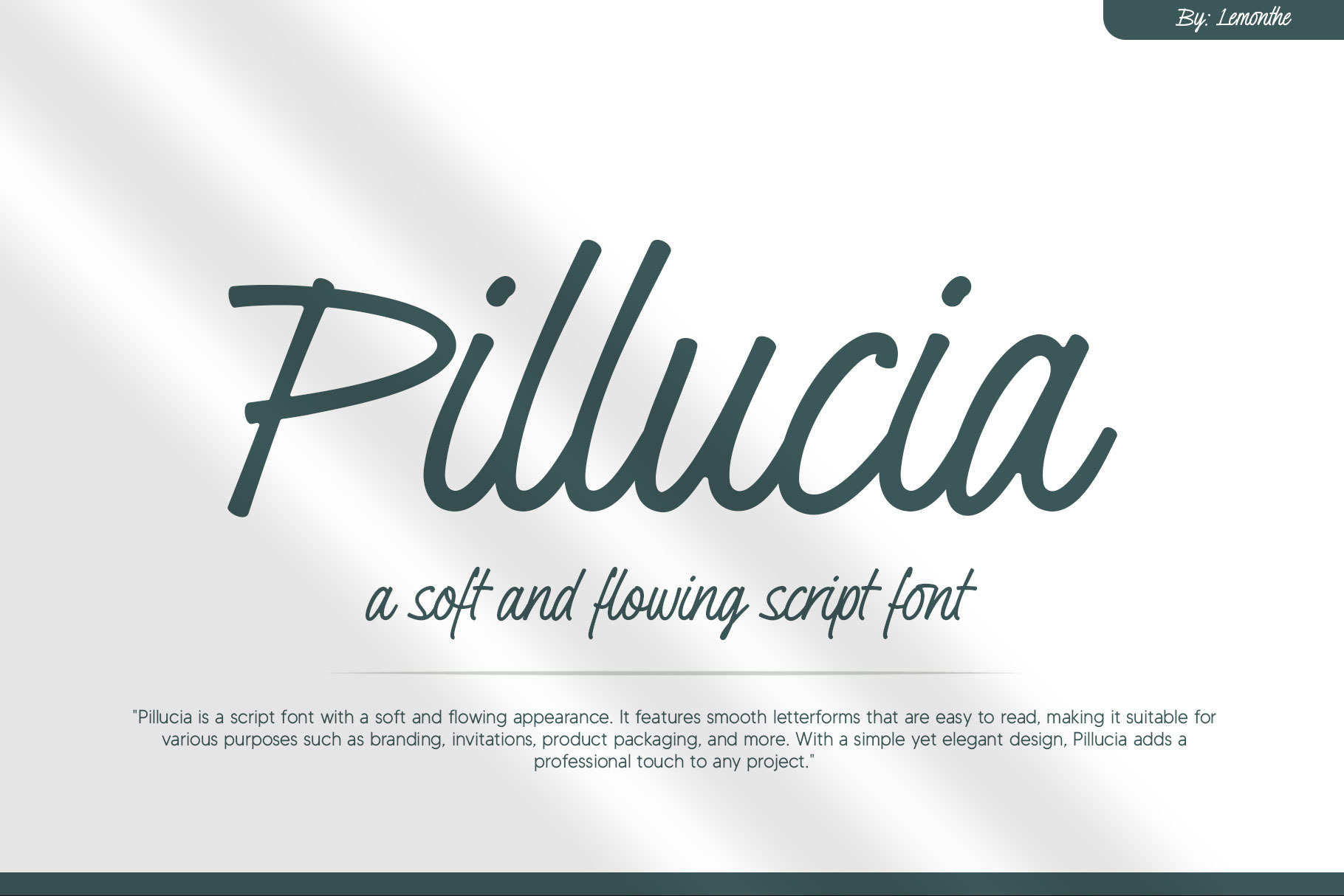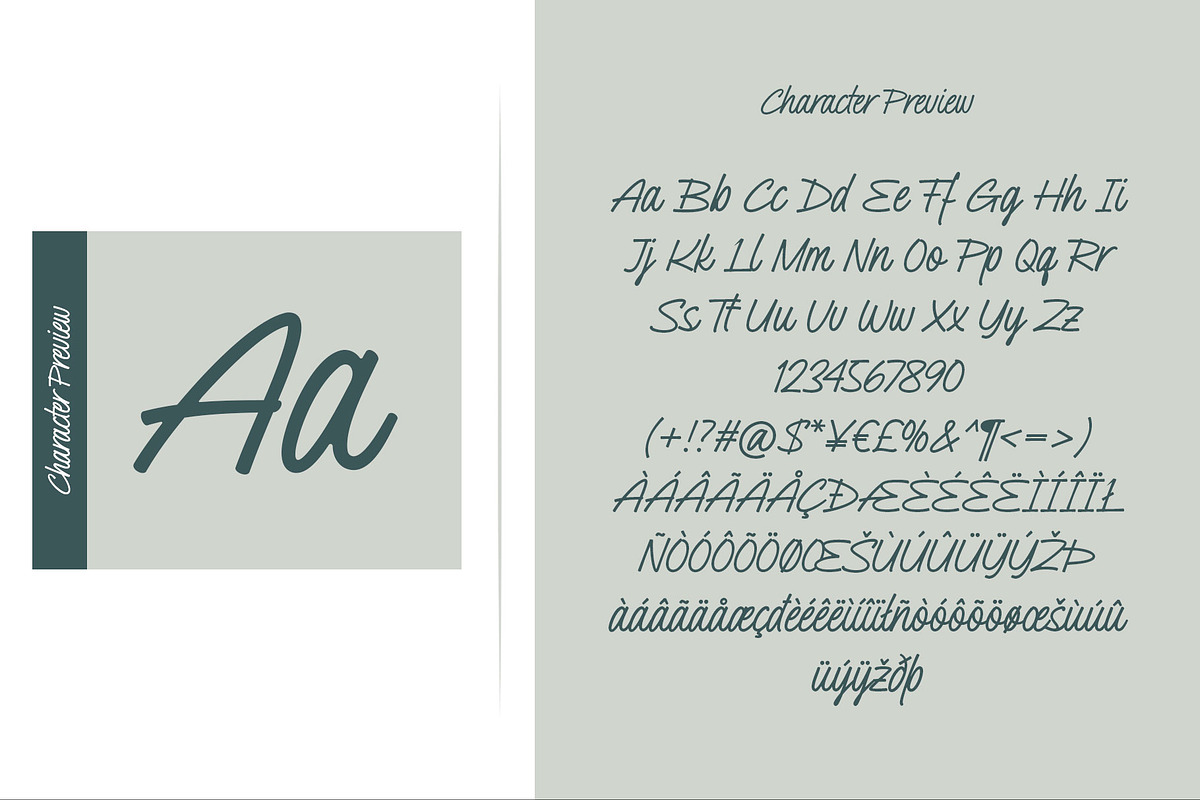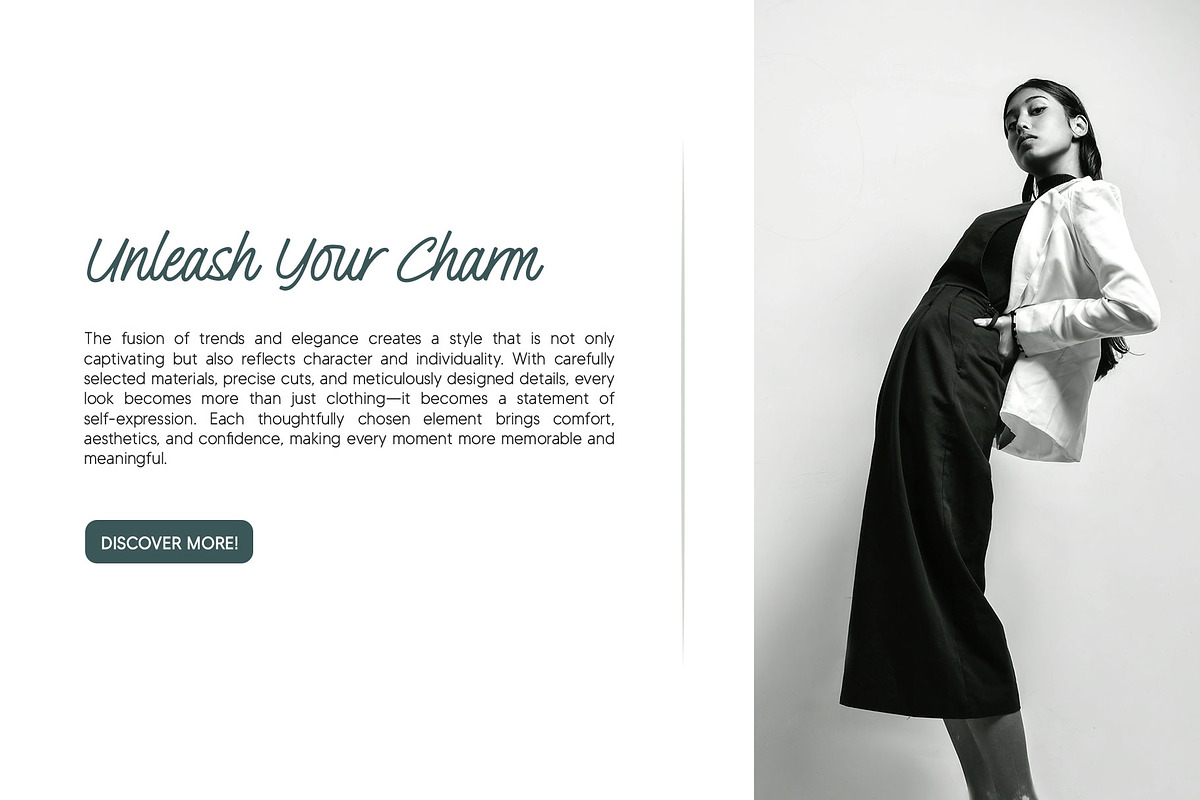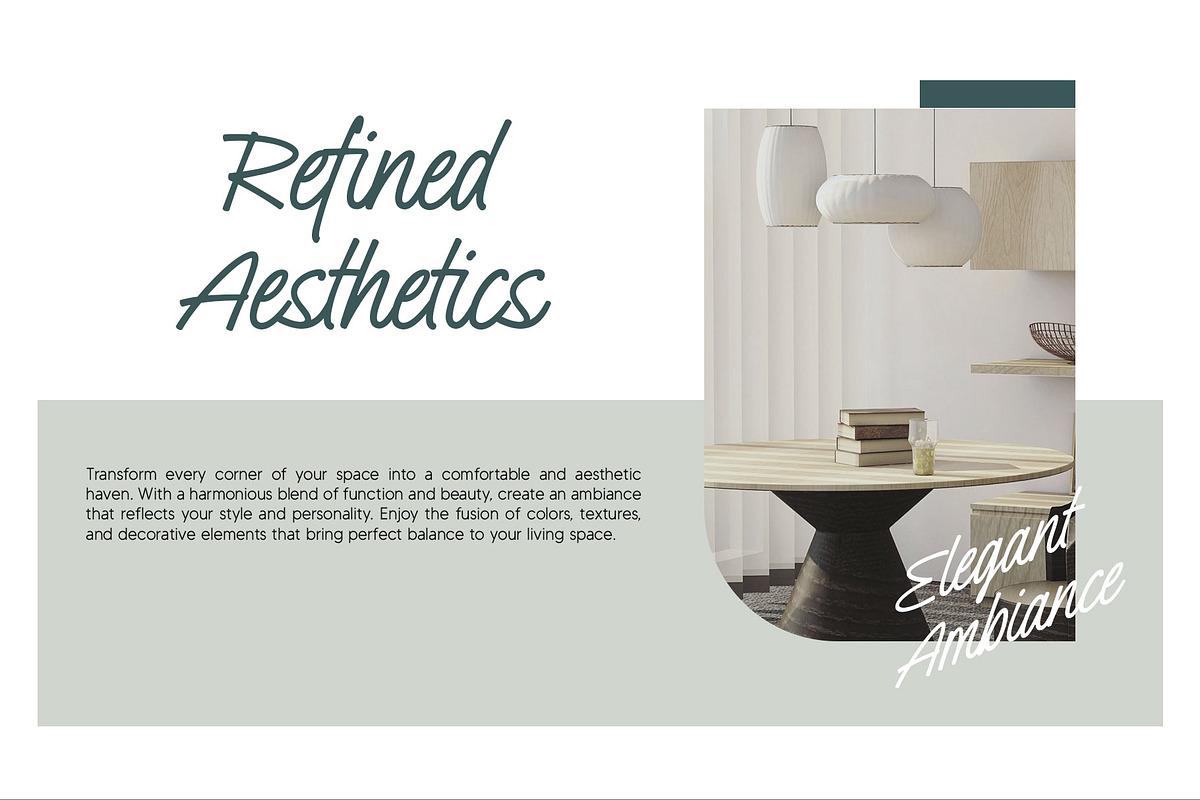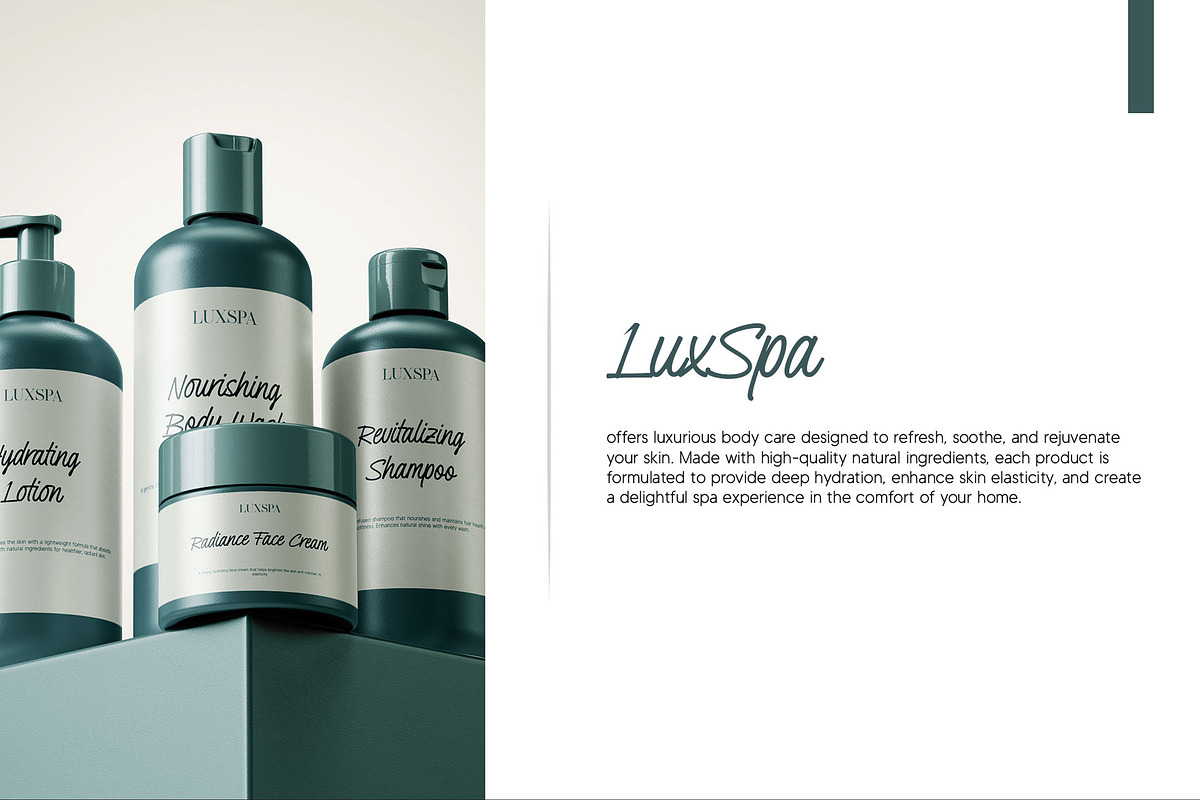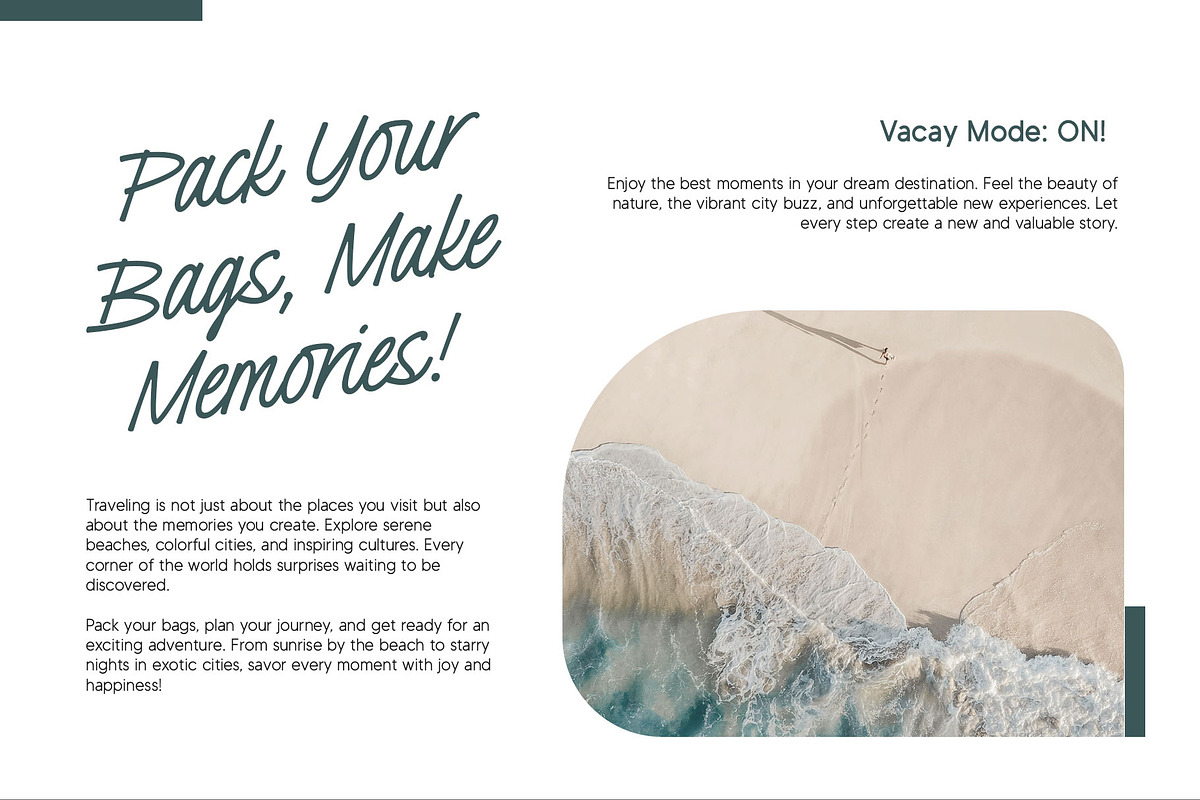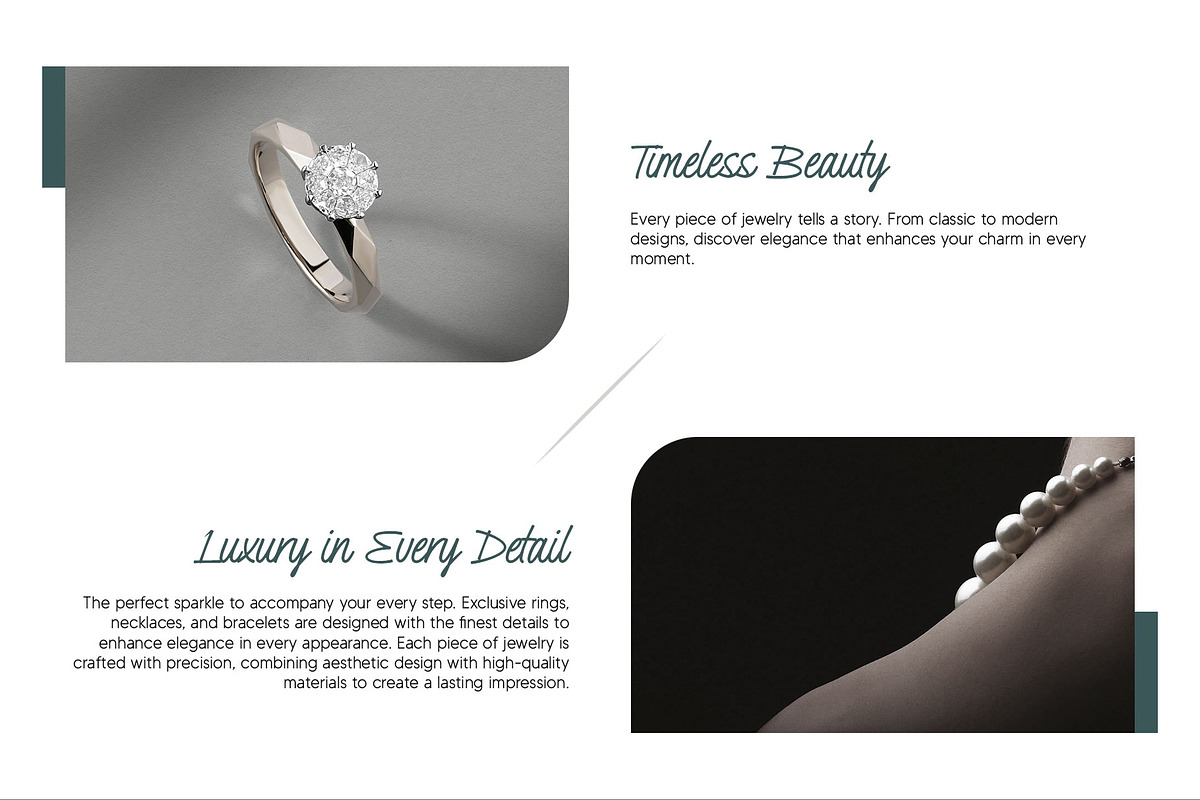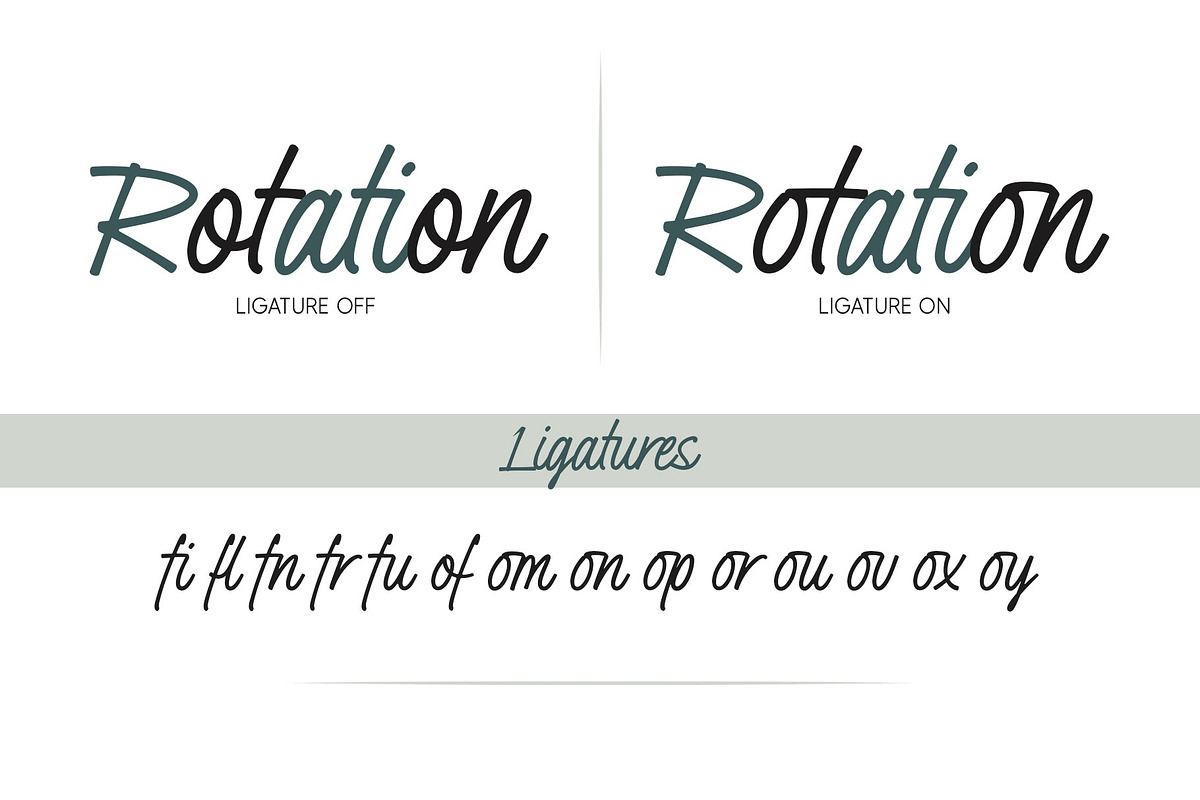
Pillucia | Script Font
Pillucia is a script font with a soft and flowing appearance. It features smooth letterforms that are easy to read, making it suitable for various purposes such as branding, invitations, product packaging, and more. With a simple yet elegant design, Pillucia adds a professional touch to any project.